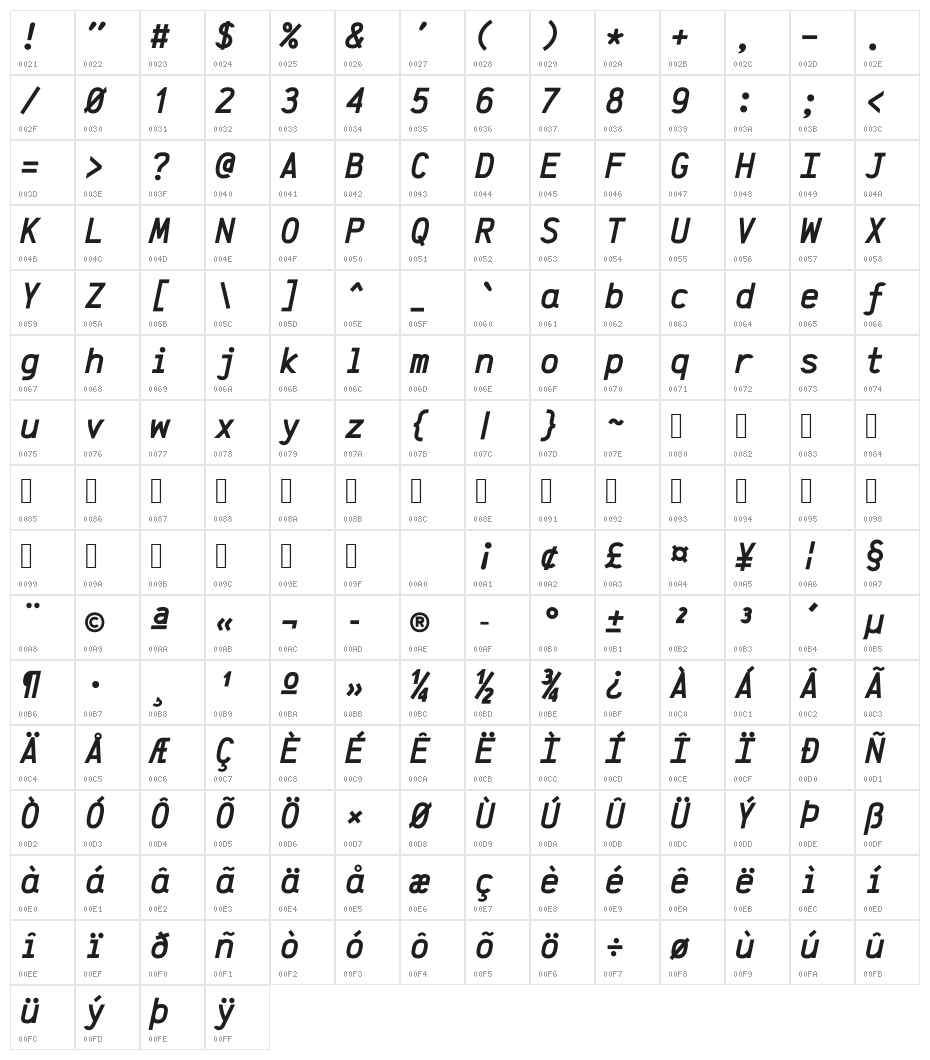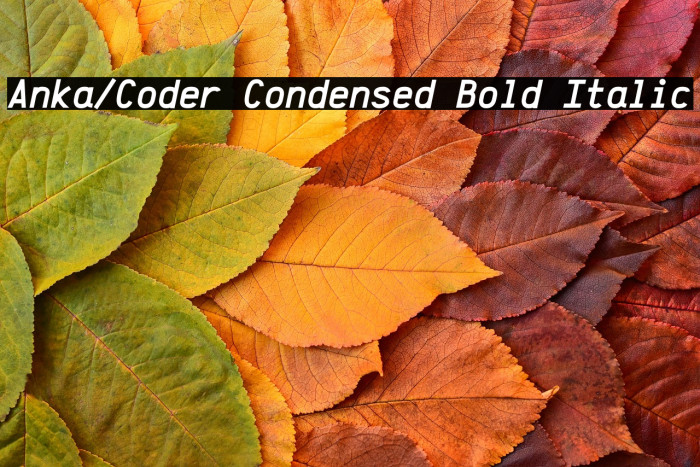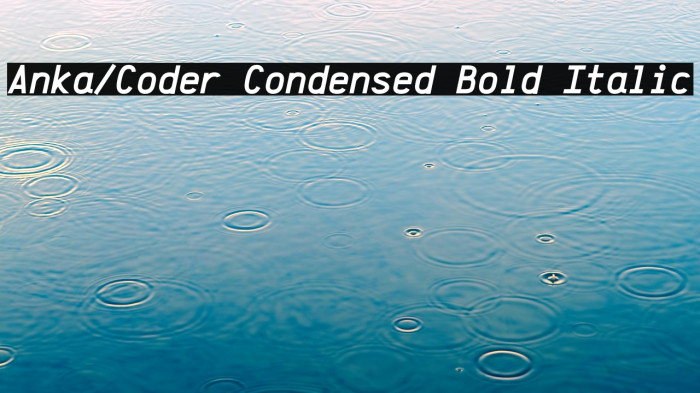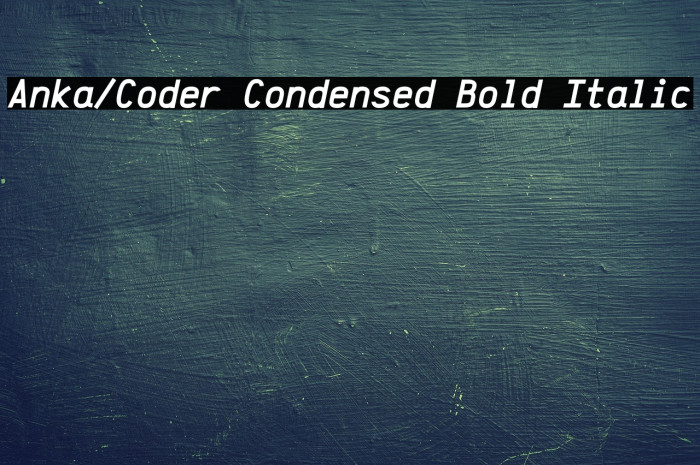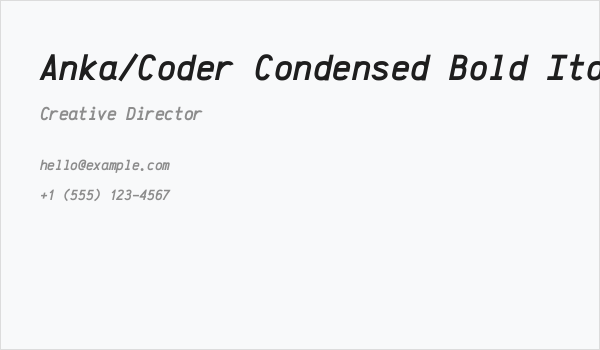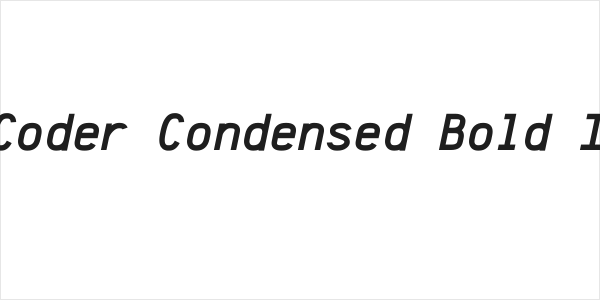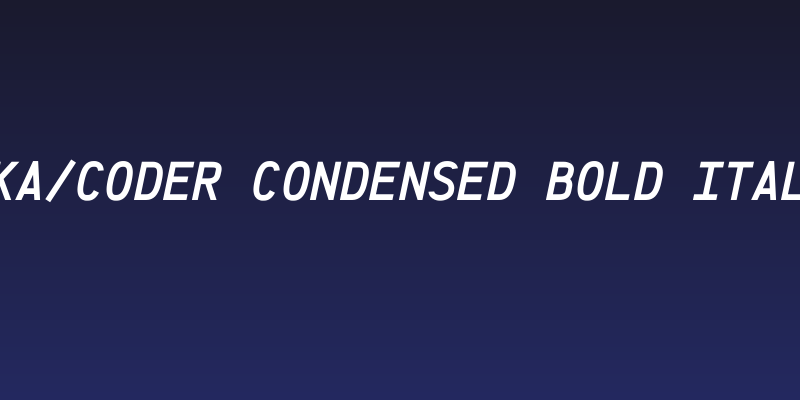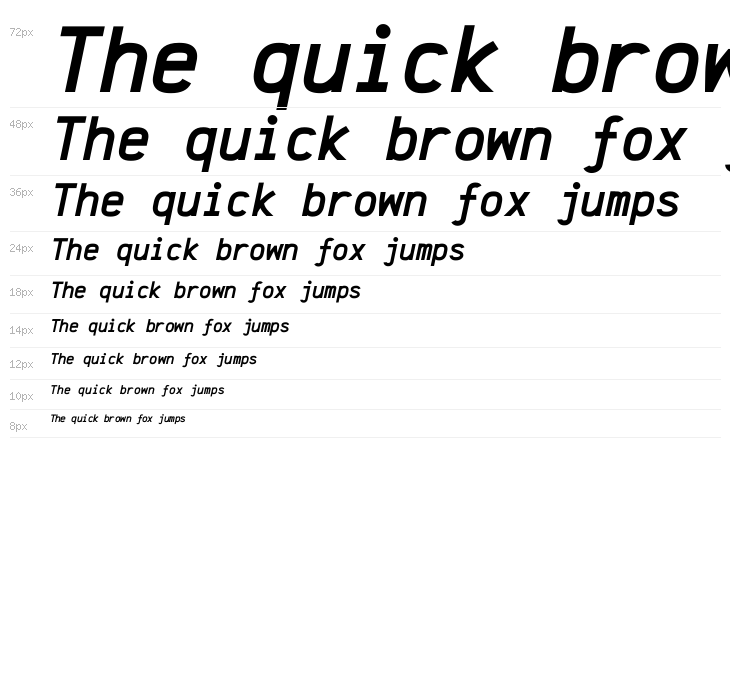
Anka/Coder Condensed Bold Italic Font
Anka/Coder Condensed Bold Italic Description
This font features a bold and italicized style with a condensed width, giving it a strong and dynamic appearance. The characters are slightly slanted, adding a sense of motion and urgency. The uppercase and lowercase letters are well-defined, with consistent stroke thickness that enhances readability. The numerals are clear and distinct, making them suitable for various applications. Special characters are included, maintaining the font's cohesive design. The overall look is modern and professional, making it versatile for different design needs.
| Use Case | Headlines, Code, Technical documents |
| Proposed Projects | Ideal for coding environments, technical documentation, modern branding, and dynamic advertising. |